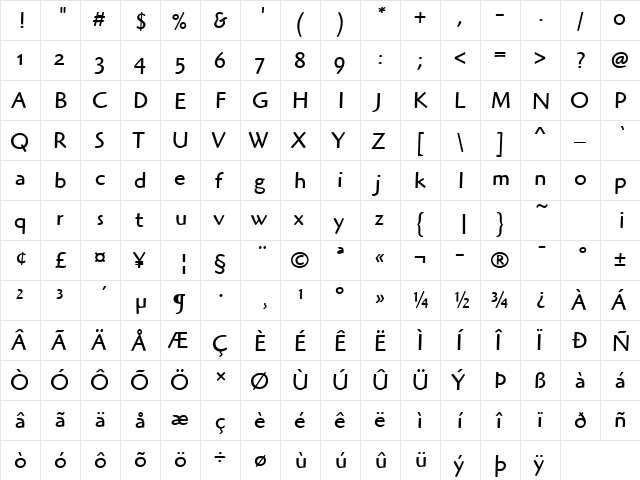
Highlander OS ITC TT Book
Design Context for Highlander OS ITC TT Typeface
Highlander OS ITC TT offers clean, dependable letterforms without strong stylistic allegiance, making it a practical choice for designers who need flexibility.